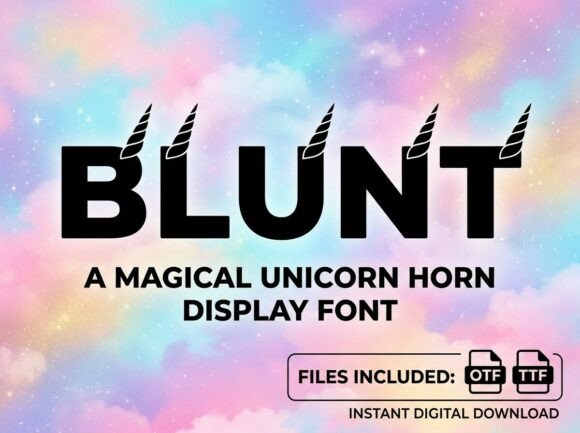
The Blunt Font: A Decorative Display Font to Elevate Your Designs
Have you ever been working on a project, pouring your heart and soul into every detail, only to get stuck on one thing: finding the perfect font? I recall a particularly frustrating experience when a client asked for a bold, eye-catching headline that would make their brand stand out. After hours of searching, I stumbled upon the Blunt Font, and it was love at first sight! ✨
This stunning decorative display font is designed to be the center of attention, featuring unique artistic elements and a strong visual personality. In this article, we’ll dive into the world of Blunt Font, exploring its features, uses, and some clever tips on how to make the most of it.
An Honest Review of Blunt Font
- ✨ Unique and artistic elements that add a touch of sophistication to any design
- ✅ Strong visual personality that commands attention
- 💯 Versatile enough for bold headlines, artistic logos, and creative packaging
- 🎨 Maintains a professional and polished finish
⚠️ It’s essential to note that Blunt Font is an ALL-CAPS (Uppercase Only) display typeface, which means it doesn’t include lowercase letters. This might be a limitation for some users, but it’s specifically designed for high-impact headlines, logos, and decorative initials where every letter is a work of art.
🤔 Some users might find that the font’s boldness can be overwhelming, so it’s crucial to use it judiciously and balance it with other design elements.
The Designer Inspiration Behind Blunt Font
Blunt Font was designed with the intention of creating a bold and eye-catching display font that would make a statement. The designer, inspired by the world of art and architecture, aimed to craft a font that would be both visually striking and versatile. The result is a font that’s perfect for creators who want to break away from the ordinary and add a touch of sophistication to their designs.
Q: Is Blunt Font suitable for body text?
A: No, Blunt Font is designed specifically for display purposes, such as headlines, logos, and decorative initials. Its boldness and artistic elements make it less suitable for body text.
Q: Can I modify Blunt Font to include lowercase letters?
A: Unfortunately, Blunt Font is designed specifically as an ALL-CAPS display typeface, and modifying it to include lowercase letters would alter its intended purpose and aesthetic.